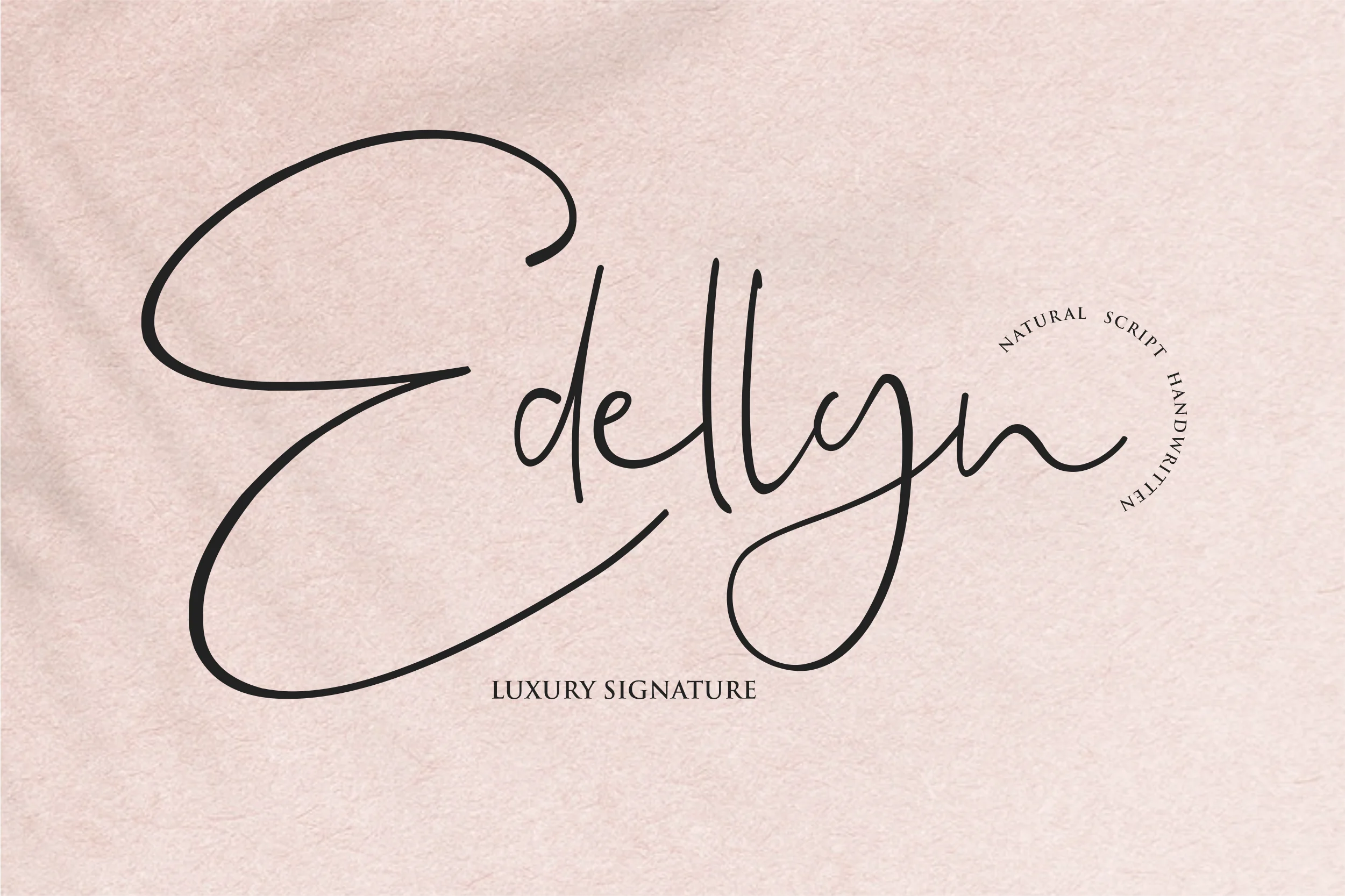
Edellyn Font
Edellyn Font is perfect for elegant wedding invitations, luxury brand calligraphy, sophisticated beauty logos, premium stationery design, high-end fashion labels, romantic greeting cards, upscale spa branding, refined jewelry advertising, exclusive boutique signage, and graceful personal branding projects.
Edellyn Font is exciting because it embodies refined elegance and timeless sophistication through graceful letterforms that flow with natural beauty and aristocratic charm. This exquisitely crafted script combines delicate femininity with strong character presence, making it perfect for luxury brands that want to communicate exclusivity, refinement, and handcrafted quality with understated elegance.
The Edellyn Font family includes the main elegant script with flowing connections, plus alternate characters, decorative swashes, and ornamental flourishes. The font features sophisticated ligatures, graceful beginning and ending forms, and delicate styling variations that enhance its refined personality and provide extensive creative flexibility for luxury applications.
The aristocratic elegance of Edellyn Font makes it an exceptional choice for luxury brands, high-end service providers, and exclusive venues that need typography capable of communicating refinement and sophisticated taste. The font's delicate character helps establish premium brand positioning and creates intimate connections with discerning audiences seeking elegant, personalized experiences and exceptional quality.
Wedding professionals, luxury retailers, and beauty brands consistently choose Edellyn Font for its ability to convey refined elegance and feminine sophistication through typography. The font excels in applications where establishing luxury credibility and elegant appeal are essential to brand success, making it particularly effective for high-end services, exclusive products, and romantic celebrations targeting sophisticated consumers.
This font's comprehensive character set includes elegantly flowing letterforms with natural connections, refined numerals, delicate punctuation marks, and ornamental symbols that support authentic luxury calligraphy composition. The careful balance between artistic expression and practical elegance ensures professional results while maintaining the sophisticated character that makes Edellyn Font Free Download perfect for exclusive design applications.